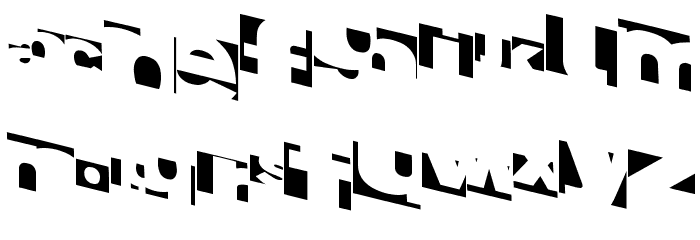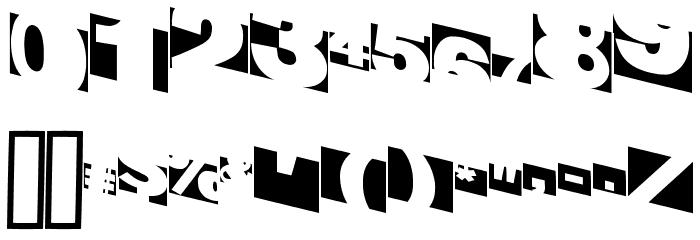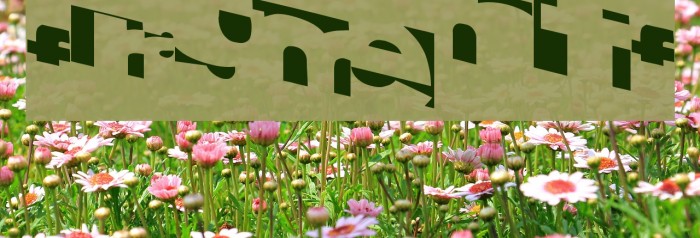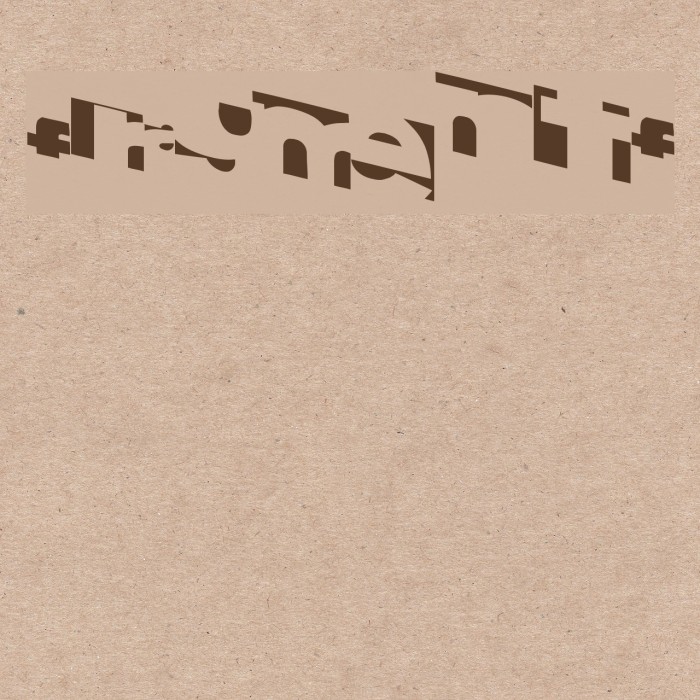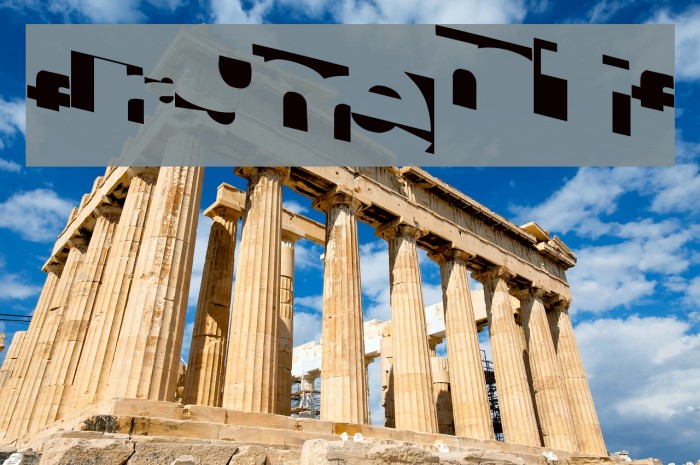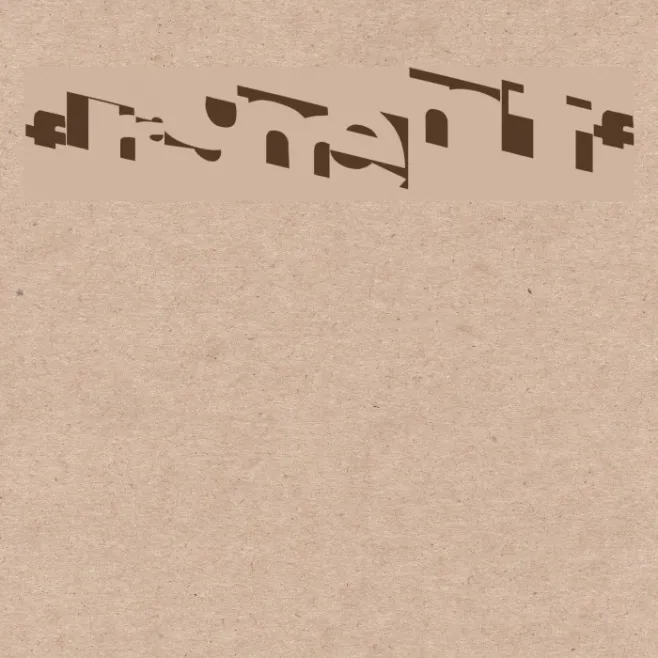
FragmentF Font
This font features a bold and striking design with a highly geometric and abstract style. The characters are composed of thick, block-like shapes with sharp angles and unique cutouts, creating a fragmented and dynamic appearance. The uppercase and lowercase letters maintain a consistent weight, while the numbers and special characters follow the same bold and angular theme. The overall look is modern and unconventional, making it stand out in any design context.
A bold, geometric font with a fragmented, abstract style.
- Proposed Projects: Ideal for modern art posters, edgy branding, album covers, and experimental design projects.